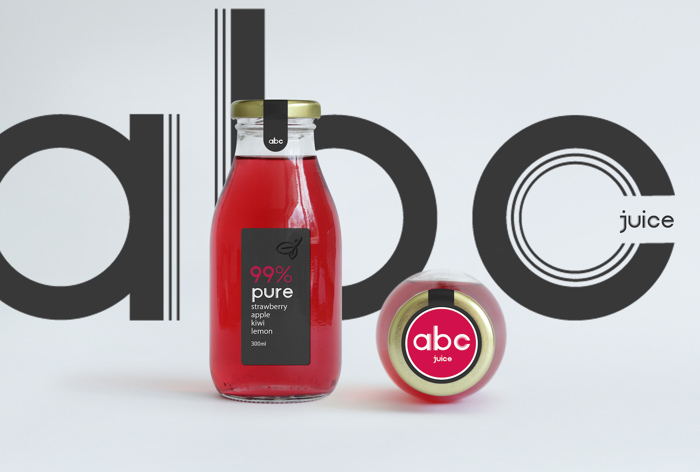
AvenueX Font
Avenue X is influenced by Art-Deco and the font takes inspiration from urban design and planning, such as lanes, avenues and highways. Each character is represented with a main "avenue" and a bike /and/ pedestrian lane, which is often seen in urban environments.